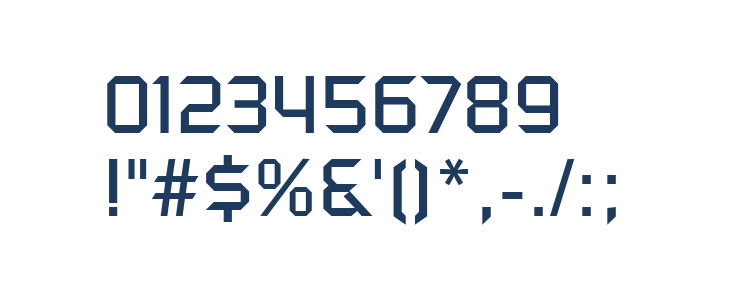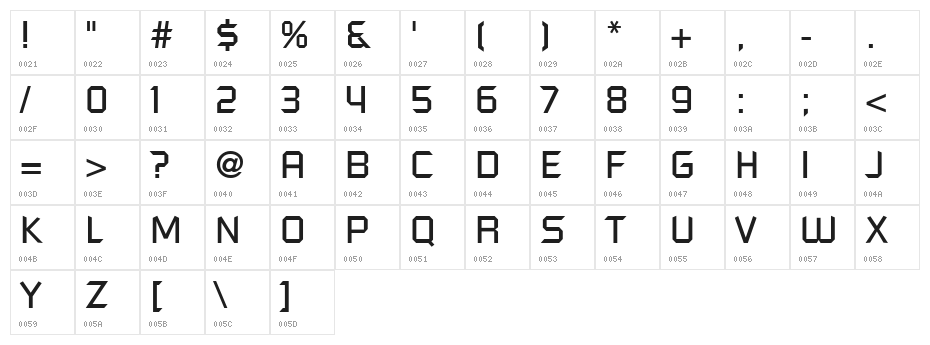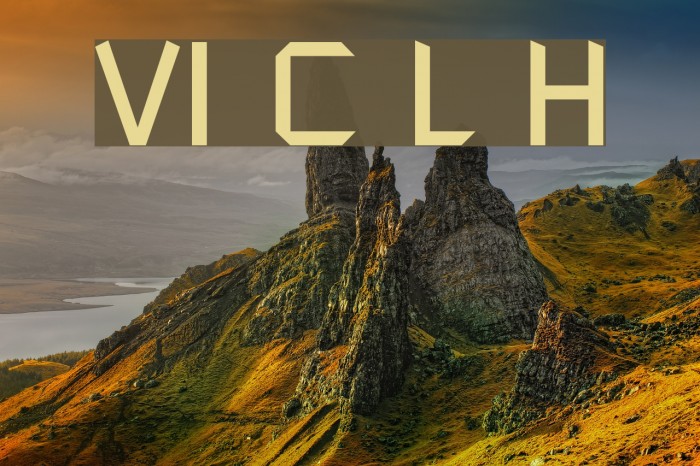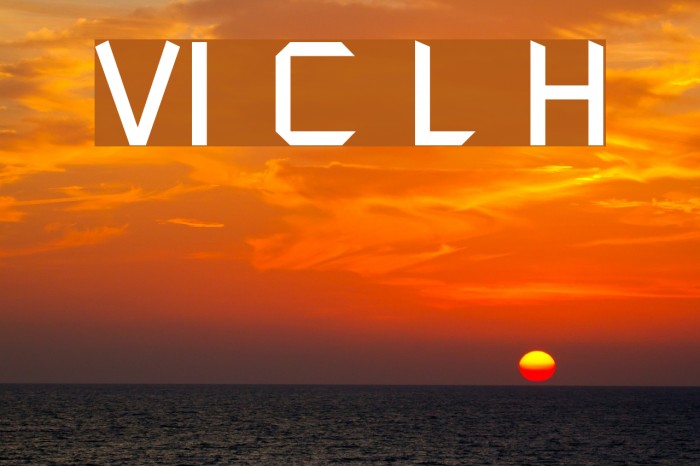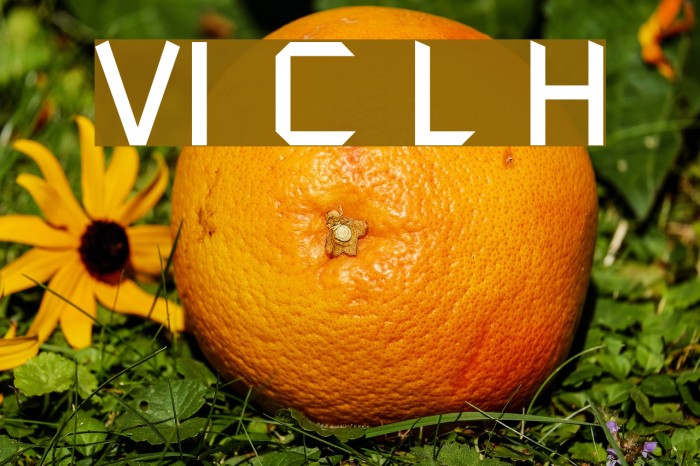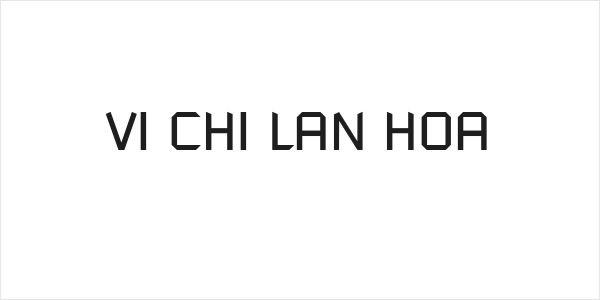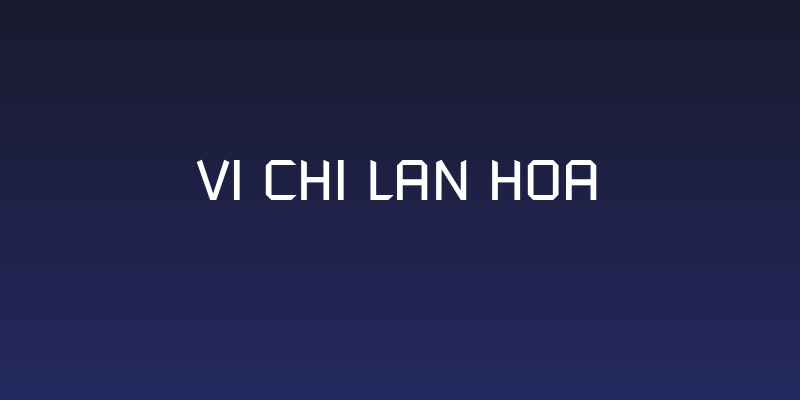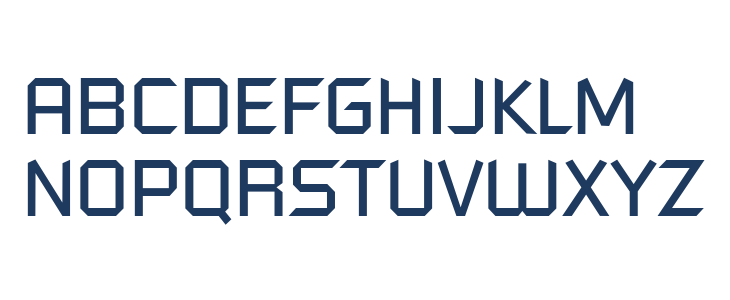
VI Chi Lan Hoa Font
VI Chi Lan Hoa Description
This font features a geometric and angular design, characterized by its sharp edges and bold presence. The uppercase and lowercase letters maintain a consistent structure, with a futuristic and technical aesthetic. The numbers and special characters follow the same design principles, ensuring uniformity across all glyphs. The font's style is reminiscent of digital or sci-fi themes, making it suitable for modern and tech-oriented projects. Its clean lines and distinct shapes make it highly legible, even at smaller sizes.
| Use Case | Headlines, Logos, Digital interfaces |
| Proposed Projects | Ideal for tech branding, digital interfaces, sci-fi themed designs, and modern advertising. |